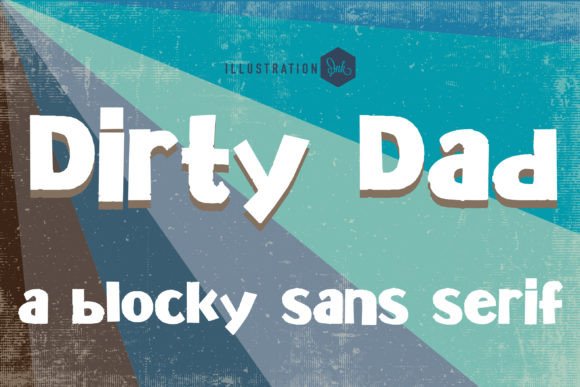
Introducing Dirty Dad Font: The Bold and Powerful Typeface for Big Statements
In the world of typography, fonts play a crucial role in conveying messages, expressing emotions, and grabbing attention. Among the numerous fonts available, one typeface stands out for its bold and powerful presence: Dirty Dad Font. Designed to make big statements, Dirty Dad Font is perfect for posters, headlines, and any project that requires a heavy weight and impactful style.
What is Dirty Dad Font?
Dirty Dad Font is a bold and powerful typeface designed to make a lasting impression. Its heavy weight and impactful style make it perfect for grabbing attention on posters, headlines, and more. The font’s rugged and edgy appearance gives it a unique personality that sets it apart from other fonts.
Key Features of Dirty Dad Font
- Bold and Powerful: Dirty Dad Font is designed to make big statements with its bold and powerful presence.
- Heavy Weight: The font’s heavy weight makes it perfect for grabbing attention on posters, headlines, and more.
- Impactful Style: The font’s impactful style adds to its bold and powerful presence, making it perfect for projects that require a strong statement.
- Versatile: Dirty Dad Font is versatile and can be used on a variety of projects, from posters and headlines to logos and branding.
Uses of Dirty Dad Font
Dirty Dad Font is perfect for a variety of projects, including:
- Posters: The font’s bold and powerful presence makes it perfect for posters, especially those that require a strong statement or attention-grabbing headline.
- Headlines: Dirty Dad Font is perfect for headlines, whether it’s for a newspaper, magazine, or online article.
- Logos and Branding: The font’s unique personality makes it perfect for logos and branding, especially for companies that want to make a bold statement.
- Advertising: Dirty Dad Font is perfect for advertising, whether it’s for print, digital, or outdoor ads.
Benefits of Using Dirty Dad Font
Using Dirty Dad Font offers several benefits, including:
- Attention-Grabbing: The font’s bold and powerful presence makes it perfect for grabbing attention.
- Unique Personality: The font’s rugged and edgy appearance gives it a unique personality that sets it apart from other fonts.
- Versatile: Dirty Dad Font is versatile and can be used on a variety of projects.
- Easy to Read: Despite its bold and powerful presence, Dirty Dad Font is easy to read, making it perfect for projects that require a strong statement and clear communication.
How to Use Dirty Dad Font
Using Dirty Dad Font is easy. Here are some tips:
- Use it for Headlines: Dirty Dad Font is perfect for headlines, whether it’s for a poster, newspaper, or online article.
- Use it for Posters: The font’s bold and powerful presence makes it perfect for posters, especially those that require a strong statement or attention-grabbing headline.
- Experiment with Colors: Dirty Dad Font looks great in bold colors, so experiment with different colors to find the one that works best for your project.
- Pair it with Other Fonts: Dirty Dad Font can be paired with other fonts to create a unique and interesting combination.
Dirty Dad Font is a bold and powerful typeface designed for big statements. Its heavy weight and impactful style make it perfect for grabbing attention on posters, headlines, and more. With its unique personality, versatility, and ease of use, Dirty Dad Font is a great addition to any designer’s font collection.
- What is Dirty Dad Font? Dirty Dad Font is a bold and powerful typeface designed for big statements.
- What are the key features of Dirty Dad Font? The font’s key features include its bold and powerful presence, heavy weight, and impactful style.
- What are the uses of Dirty Dad Font? Dirty Dad Font is perfect for posters, headlines, logos and branding, and advertising.
- What are the benefits of using Dirty Dad Font? The benefits of using Dirty Dad Font include its attention-grabbing presence, unique personality, versatility, and ease of use.